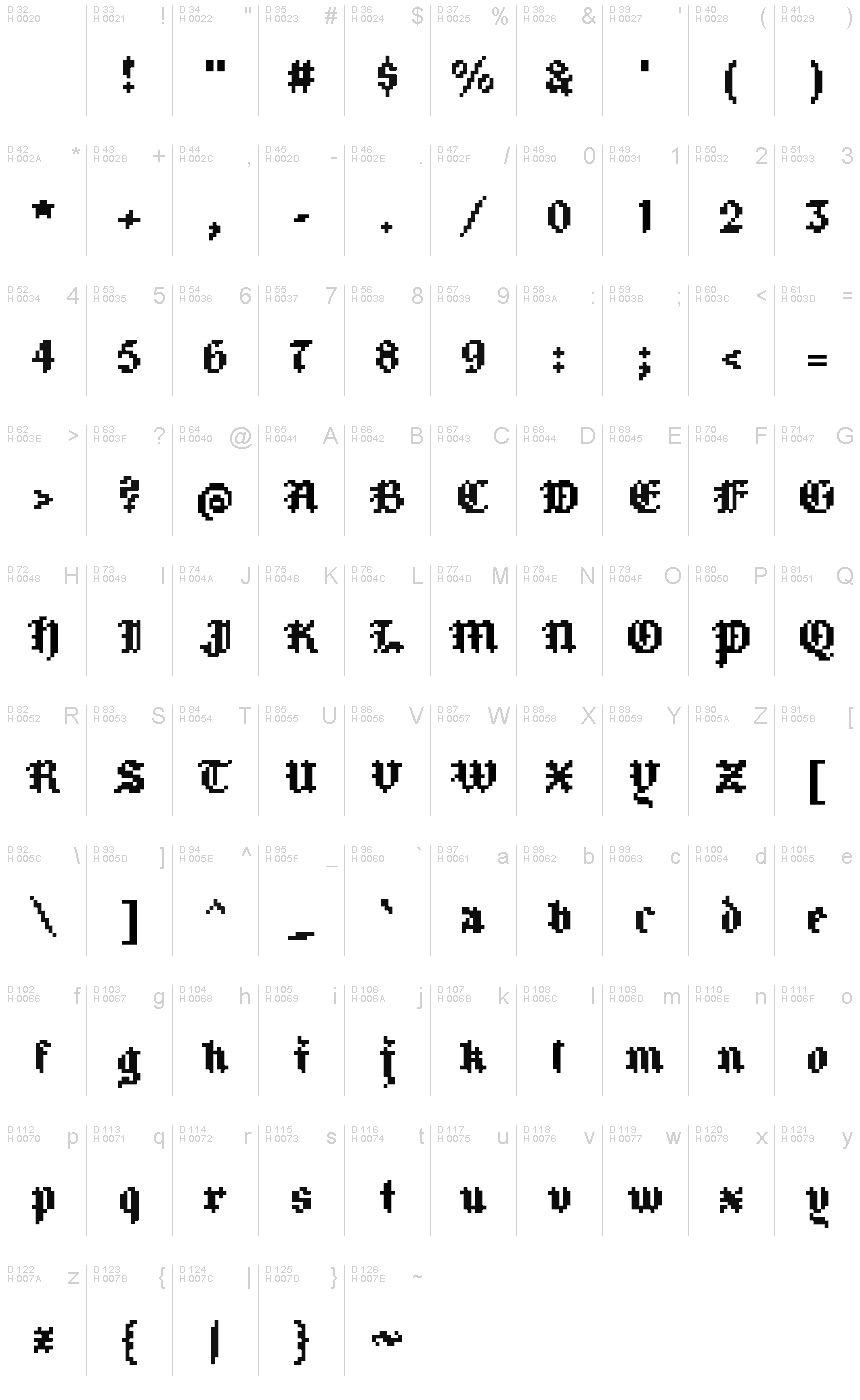
OwreKynge
"Owre Kynge" by Jeti is a bold, pixelated bitmap font that pays homage to the Blackletter script of 15th-century England. Its angular, Gothic-inspired letterforms evoke a sense of medieval grandeur and ancient elegance. The distinct, chunky aesthetic lends itself well to header text, title treatments, and decorative accents, imbuing designs with an old-world charm and retro-digital flair.
Owre Kynge's striking visual presence makes it a versatile choice for a wide range of creative applications, from book covers and album art to signage and branding. Its unique character could shine in gaming interfaces, fantasy-themed illustrations, or advertising campaigns seeking a captivating, nostalgic aesthetic.